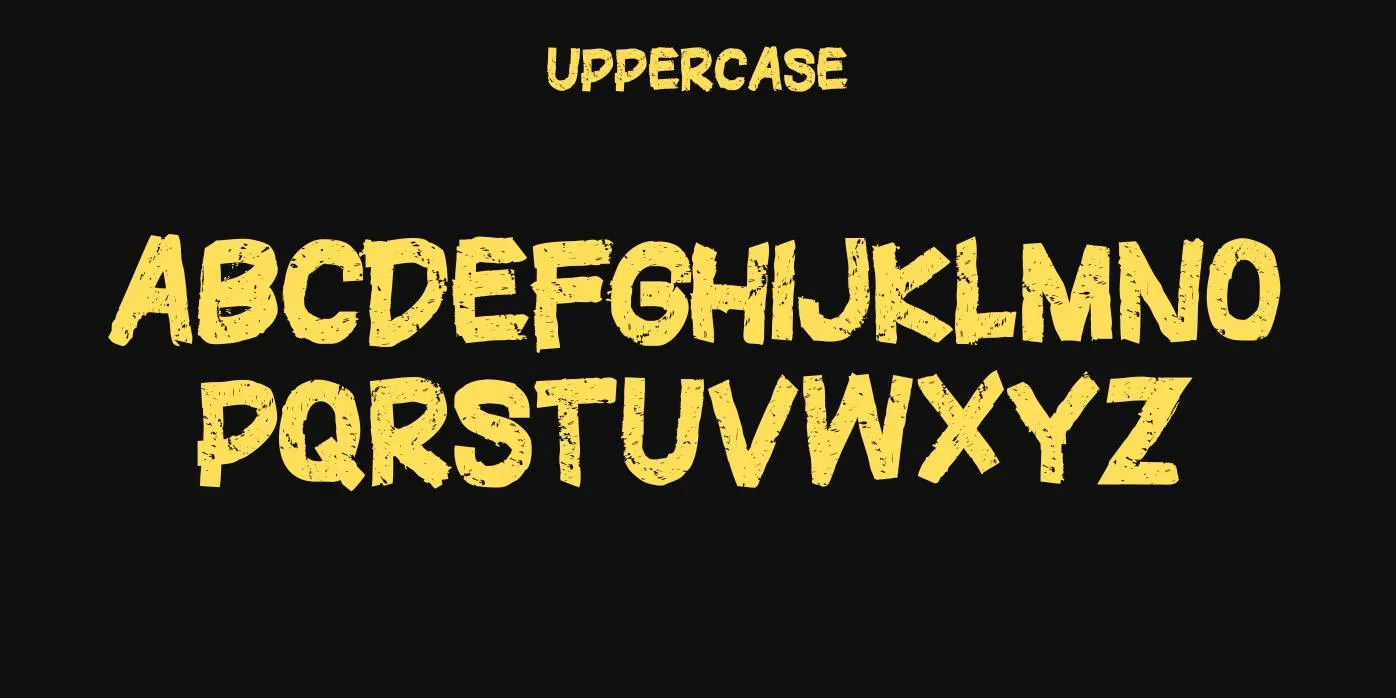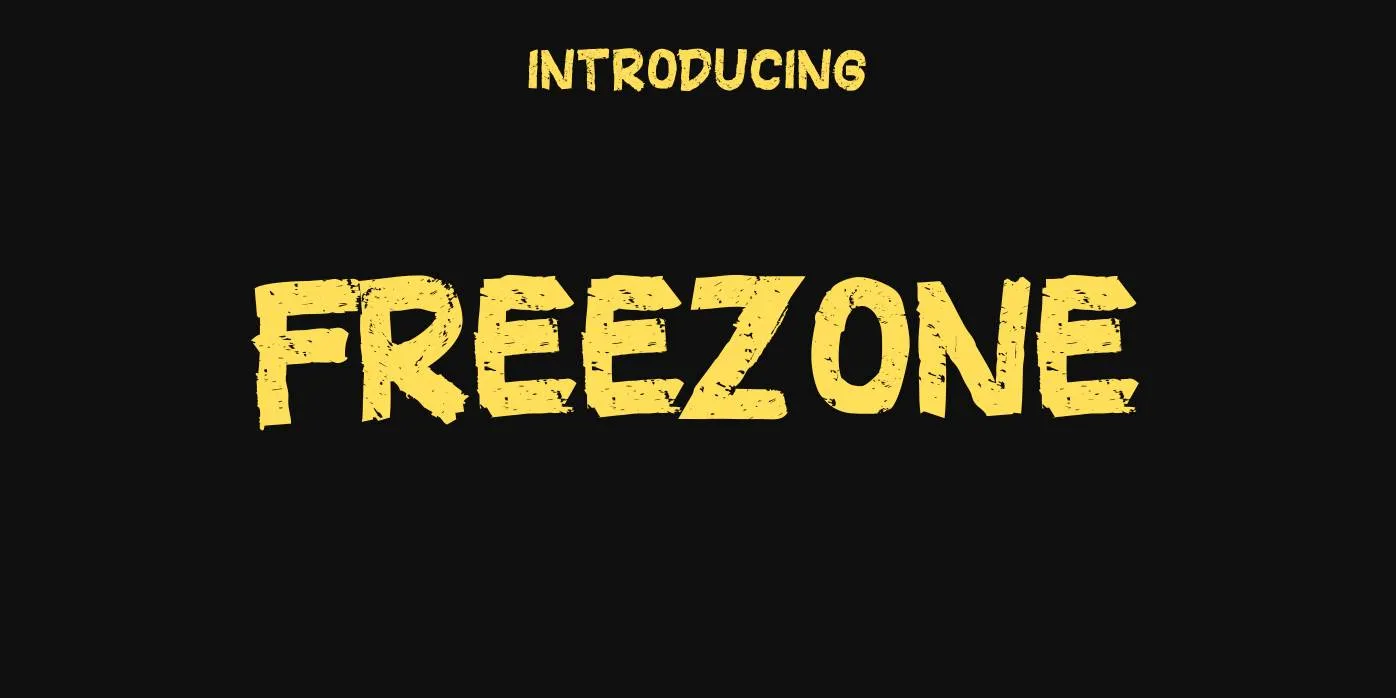
Freezone Font
Freezone Font is an amazing texture that was designed by Creativework69. You can use this font for making so many different projects. It contains many features like 74 characters, 104 glyphs, and 1000 units per Em. The weight of the font is Bold and its width is semi-condesned.  This wonderful texture includes two types of file formats TTF and OTF.
Usage You can use this for making so many different projects. It has amazing features like characters, symbols, numbers, capital letters, punctuation, and special characters. You can make attractive banners, posters, flyers, and brochures. It is also used for making attractive logos and title designs for movies and video games.
To make social media posts and other advertisement purposes you can use this font as well. To make eye-catching graphic and website designs. You can use this font on Adobe Photoshop, Illustrator, MS Word, CSS, and Canva. It is a very nice fancy font and you can make branding and product packing with this font also.